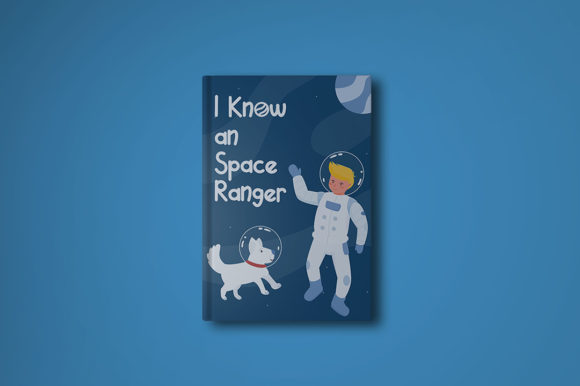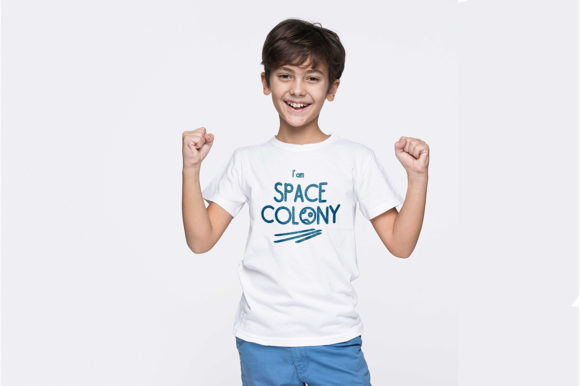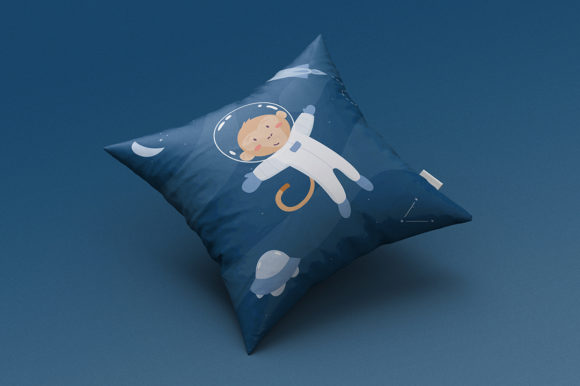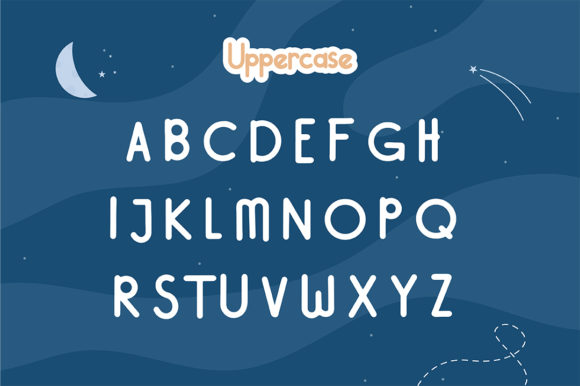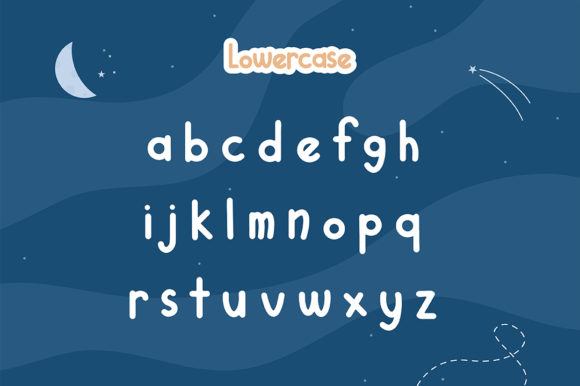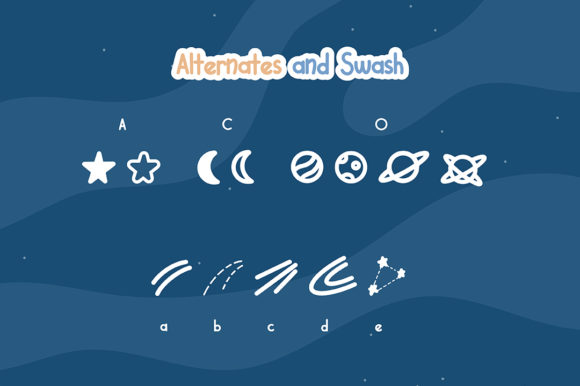
Introduction to Little Orion Font Font
Fonts play a crucial role in design, and the Little Orion Font font is a typeface that brings both character and versatility to any project. Whether you’re working on a branding project, a website, or a print design, the Little Orion Font font offers a unique style that can elevate your work.
Little Orion is a lovely and incredibly cute handwritten font.
Get creative with its sweet and friendly style, and use it to brighten up any kids and school project .
Key Features of Little Orion Font Font
Why Choose Little Orion Font Font?
The Little Orion Font font is more than just a typeface – it’s a design tool that helps you communicate your message with style and clarity. Its unique character set and versatile design make it suitable for a wide range of applications, from elegant invitations to bold headlines.
With its carefully crafted letterforms and balanced proportions, the Little Orion Font font ensures readability and visual appeal across all mediums.
What makes Little Orion Font font special?
The Little Orion Font font stands out with its unique design, exceptional readability, and versatility across various design applications.